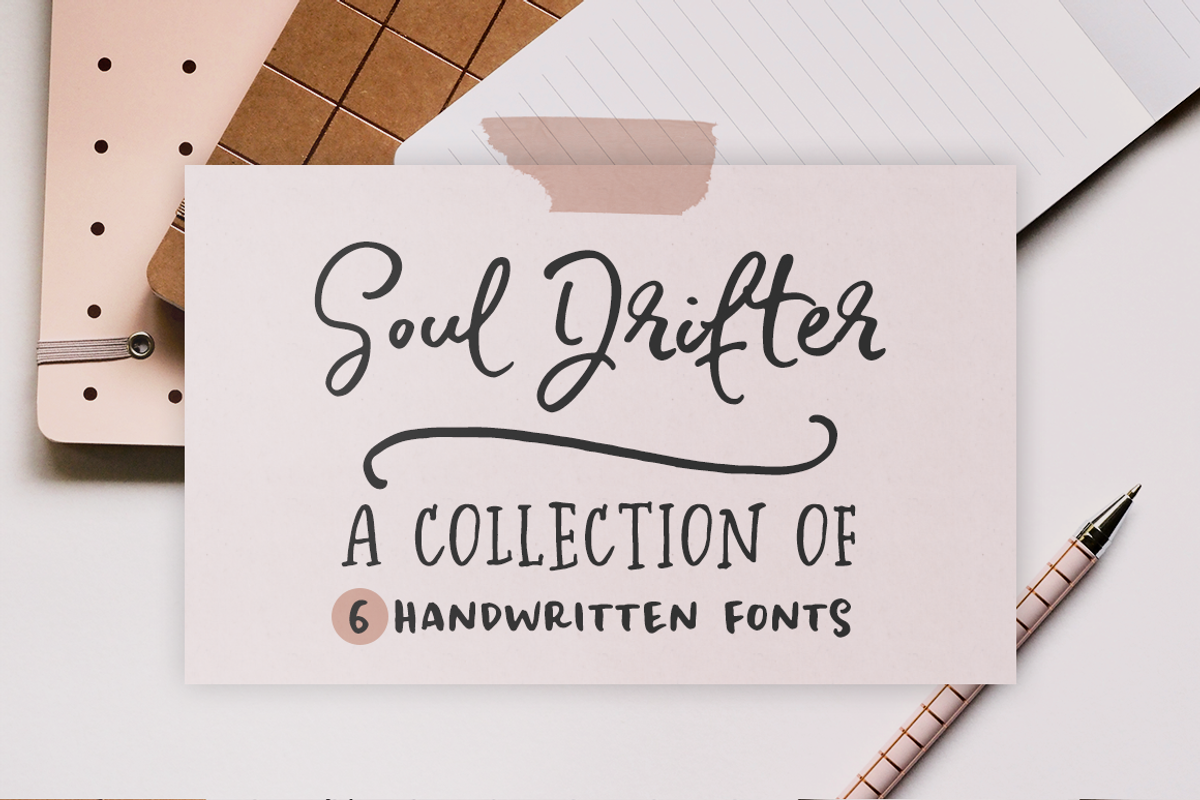
Soul Drifter Handwritten Font Free Download is a soulful and expressive script typeface that brings a raw, personal feel to any design. With its fluid strokes and slightly rugged texture, this font is perfect for branding, lifestyle blogs, quote graphics, wedding stationery, and handmade product packaging.
Its natural flow and emotional tone make it ideal for projects that aim to feel authentic, artistic, and heartfelt. Soul Drifter captures the essence of real handwriting, adding depth and personality to everything from logos to social media posts.